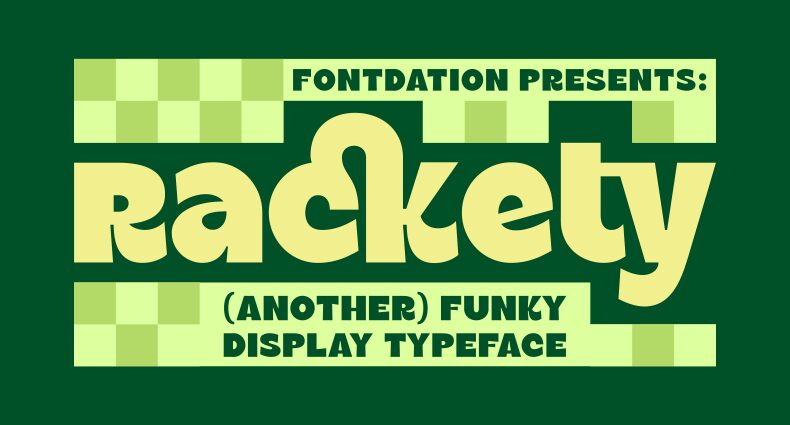
Rackety font by Twicolabs Fontdation brings a fresh, whimsical twist to traditional sans serif typography. This free font marries decorative, retro-inspired elements with a bold geometric influence, bringing a quirky and engaging visual style. Its unique character is reflected in every letter, making it a fun and dynamic choice for your design projects. The whimsical touch makes this font stand out, grabbing attention wherever it’s applied.
Embrace Rackety’s unique style in quirky editorial headlines, enticing advertising materials, book covers that pop, and distinct product packaging. Ideal for social media banners, content creators can make posts and themes standout, while also proving effective in web design, branding, business cards, posters, and labels. Fashion labels, game design, and intuitive mobile apps also fit the billing.